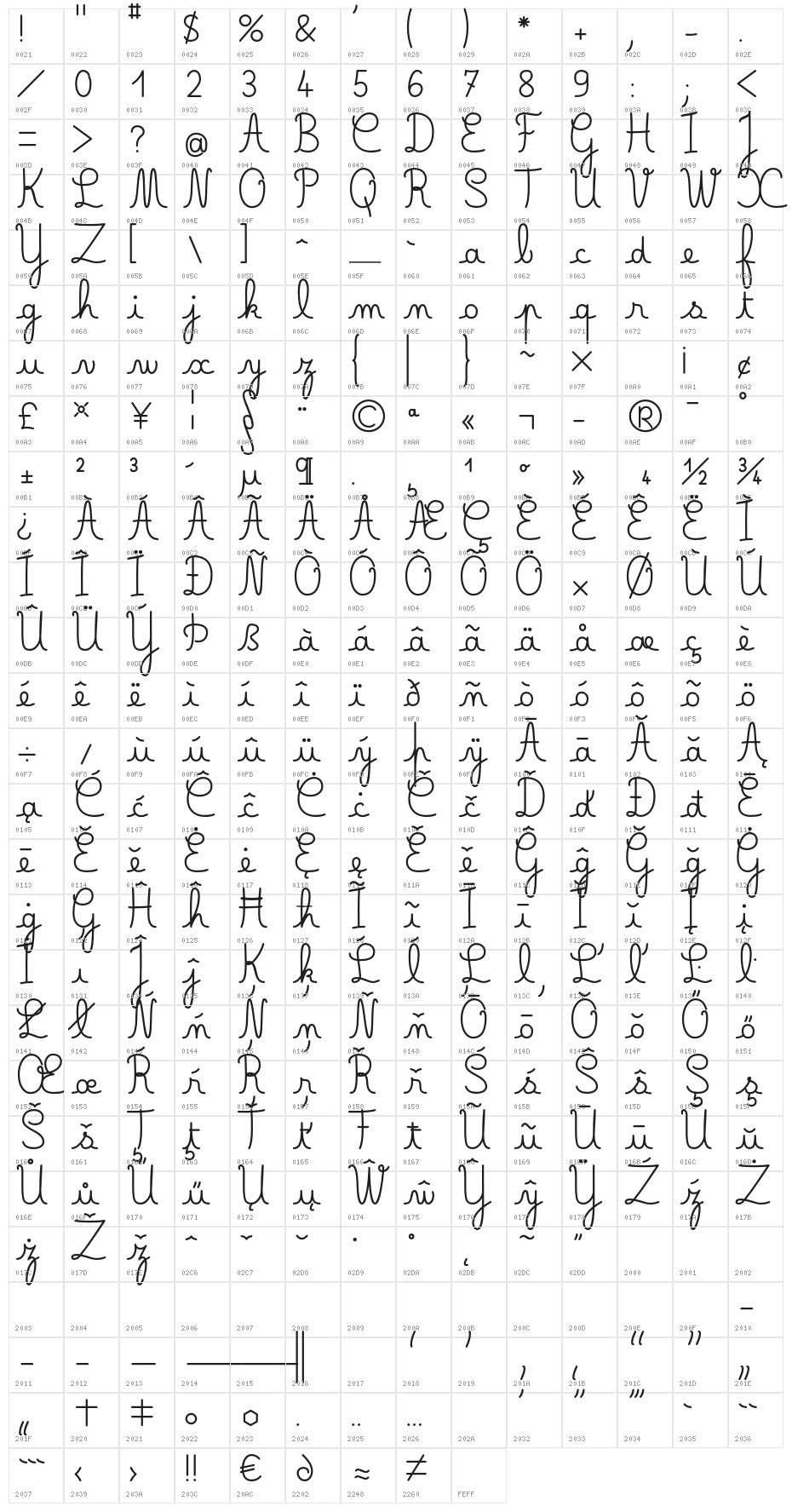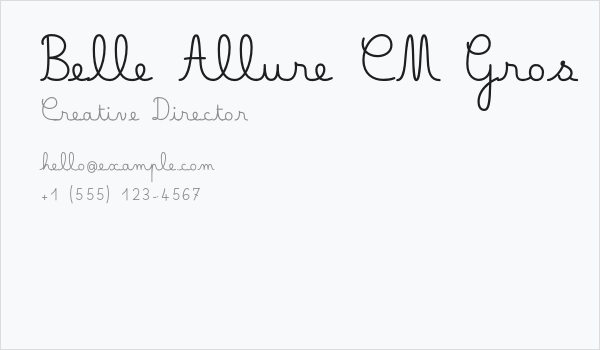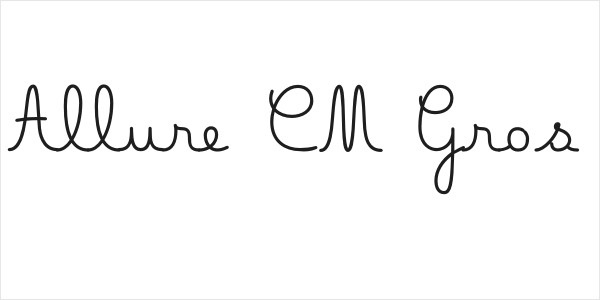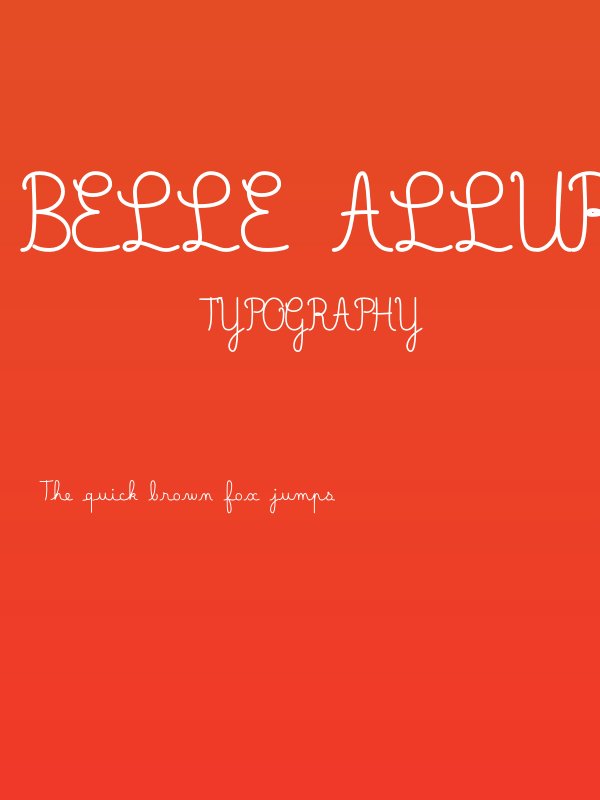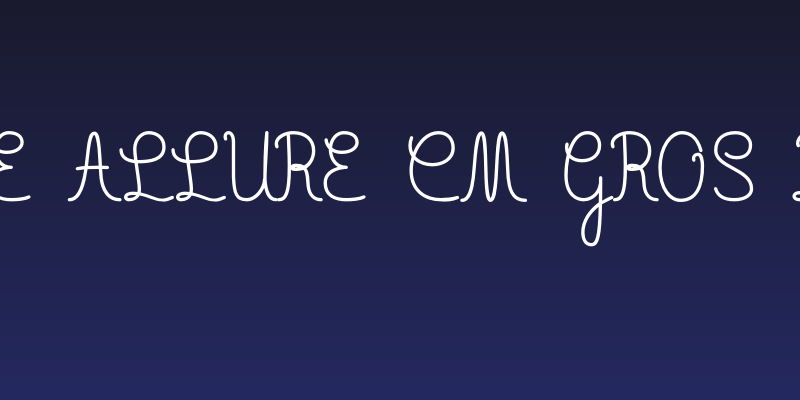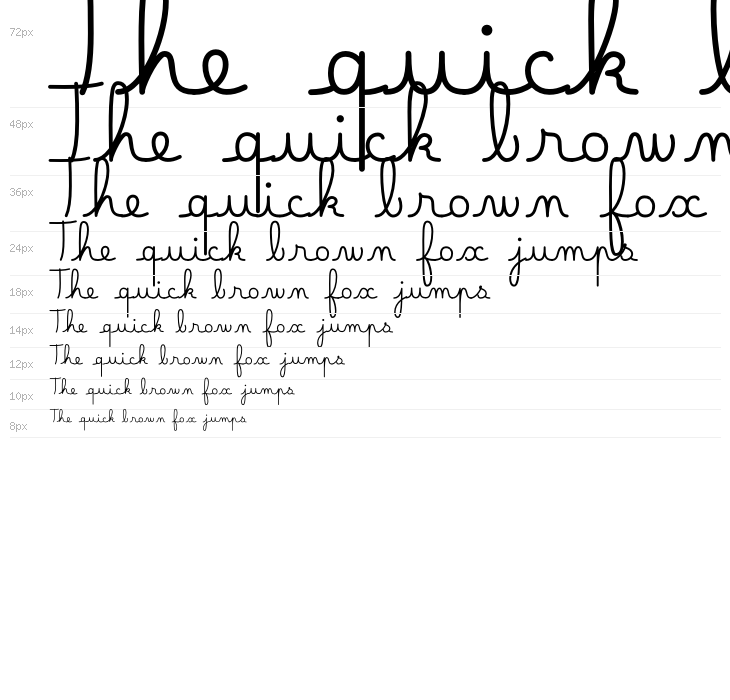
Belle Allure CM Gros Demo Font
Belle Allure CM Gros Demo Description
This font features a playful and elegant script style, characterized by its flowing, interconnected letters. The uppercase letters are bold and prominent, with a whimsical flair that adds a touch of sophistication. The lowercase letters maintain a consistent flow, enhancing readability while preserving the font's artistic nature. Numbers are clear and rounded, complementing the overall design. Special characters are creatively integrated, maintaining the font's cohesive look. This font is perfect for projects that require a personal and artistic touch, such as invitations, greeting cards, and branding materials.
| Proposed Projects | Ideal for invitations, greeting cards, branding, and artistic projects. |